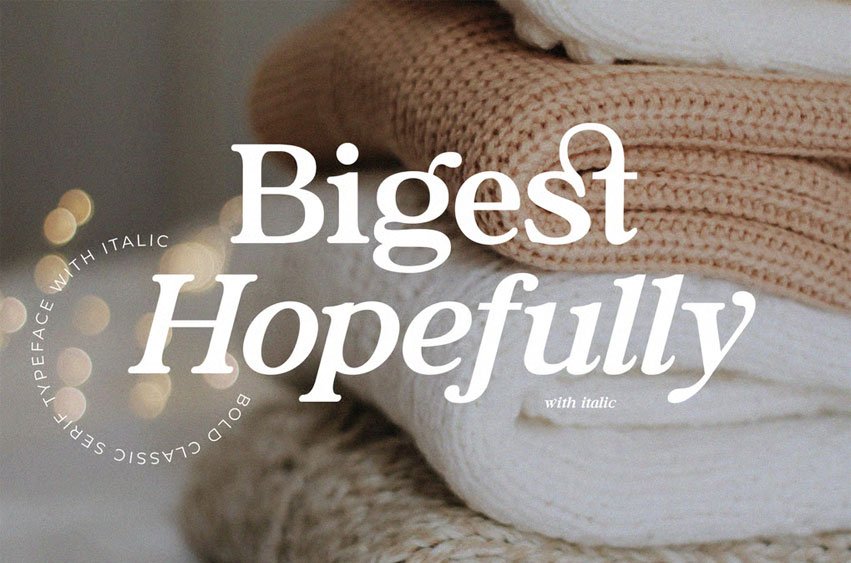
Bigest Font has a classic and elegant style and uses a bold and italic style in the letters. This font is suitable for use in various media. You will get :
Bigest Font Preview